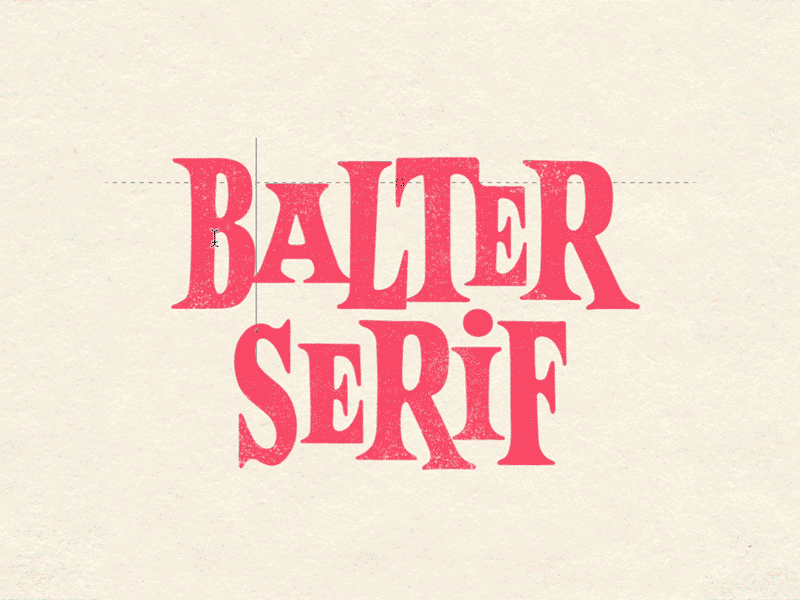
Balter Serif font Family
Balter Serif is a hand-drawn layered typeface family inspired by sign painting, 1960’s movie posters and jazz album lettering.